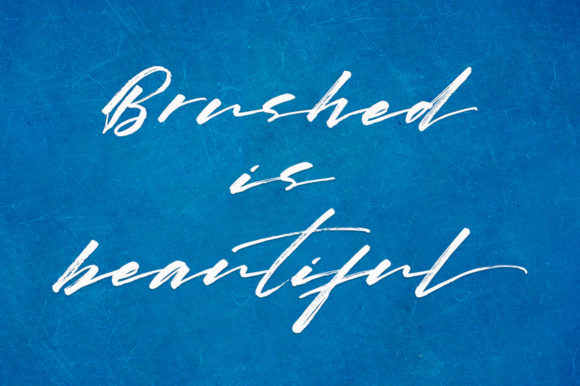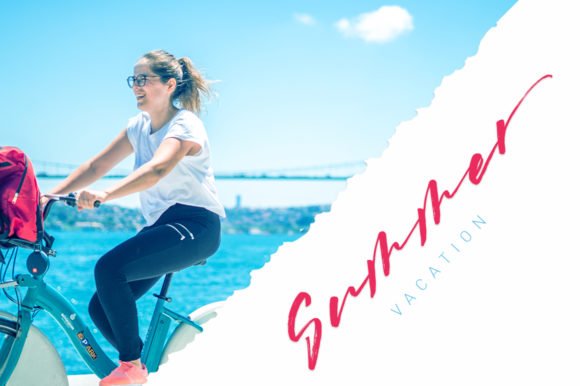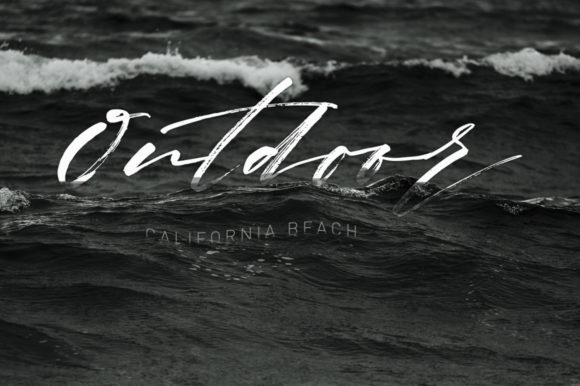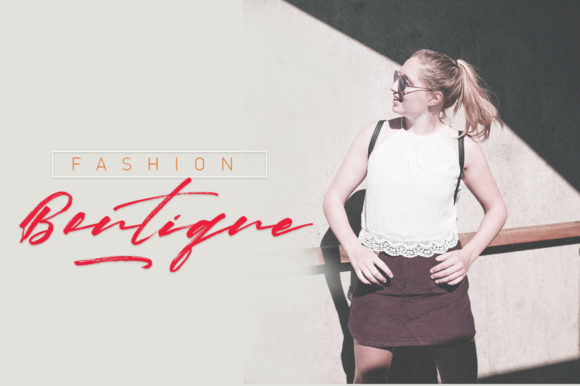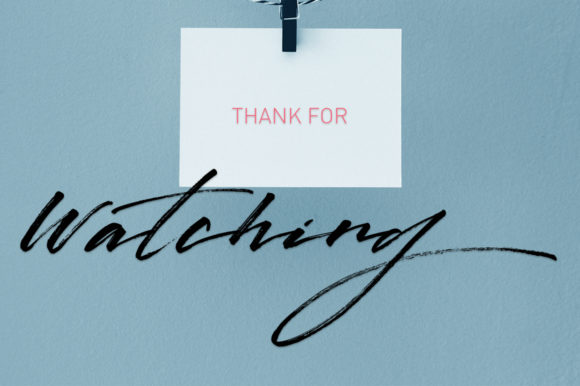
HomeScript FontsGold Stone Font Script Fonts Gold Stone Font FacebookXPinterestWhatsApp Gold Stone Font Poster 2 Gold Stone Font Poster 3 Gold Stone Font Poster 4 Gold Stone Font Poster 5 Gold Stone Font Poster 6 About Gold Stone Font Gold stone is a hand-brushed modern calligraphy script. It will add a romantic touch to any crafting project! DOWNLOAD ON CREATIVE FABRICAThis font is sold and delivered by Creative Fabrica. Font Canyon may earn a commission if you buy through this link. People also explored Nubriska Font Mellow Heart Font Rasmini Widuri Font Peony Blooms Duo Font Dream Party Font Beauty Flawless Font Soulmate Font My Rainbow Font Kaiden Font 275 0 TagsGold Stone Font Previous articlePerisha FontNext articleYohey Font LEAVE A REPLY Cancel reply Comment: Please enter your comment! Name:* Please enter your name here Email:* You have entered an incorrect email address! Please enter your email address here Website: Save my name, email, and website in this browser for the next time I comment. Personal Use Free Lightning Script Personal Use Free Read more about this font Sunflower Personal Use Free Read more about this font The Relapse Personal Use Free Read more about this font Adriator Personal Use Free Read more about this font BLOG Top 7 Google Fonts Alternatives for Faster and Privacy-Friendly Web Design (2025) Top 7 Google Fonts Alternatives for Faster and Privacy-Friendly Web Design (2025) When it comes to web typography, Google Fonts has long been the go-to... How to Install and Use Fonts on Windows, macOS, and Web Projects Exploring Font Trends Transform Your Website: Elevate Your Typography with 7 Best Web Font Generators